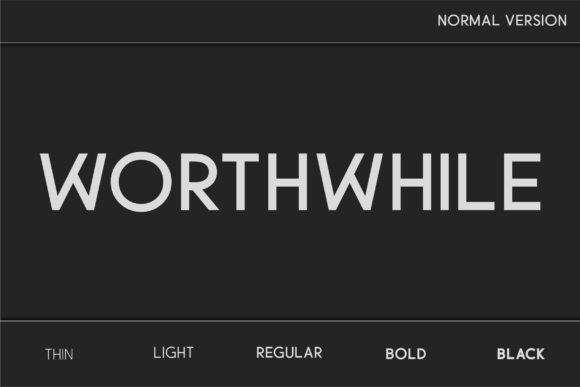
Immerse yourself in the world of unparalleled typography with Worthwhile Font, a sans serif masterpiece meticulously crafted by Nan Design. This font family is not just a collection of letters; it's an art form that elevates your designs to breathtaking heights.
Imagine your words dancing gracefully on the page, captivating readers with their refined elegance. Worthwhile Font's clean lines and balanced proportions create a visual symphony that complements any project, whether it's a sophisticated art magazine, a captivating logo, or a thought-provoking film poster.
With Worthwhile Font, your designs will exude an aura of timeless charm, transcending fleeting trends and leaving a lasting impression. Its versatility knows no bounds, effortlessly adapting to a myriad of styles, from classic to contemporary, minimal to ornate.
Unleash your creativity and let Worthwhile Font guide you to typographic excellence. Transform ordinary words into extraordinary expressions, conveying messages with an impact that resonates.
Discover the perfect harmony of sophistication and simplicity, where each letter is a work of art, carefully shaped to enhance the overall aesthetic of your designs. Worthwhile Font is more than just a font; it's an investment in timeless elegance that will elevate your projects to new heights.
Embark on a typographic journey like no other with Worthwhile Font, and experience the transformative power of exceptional design.